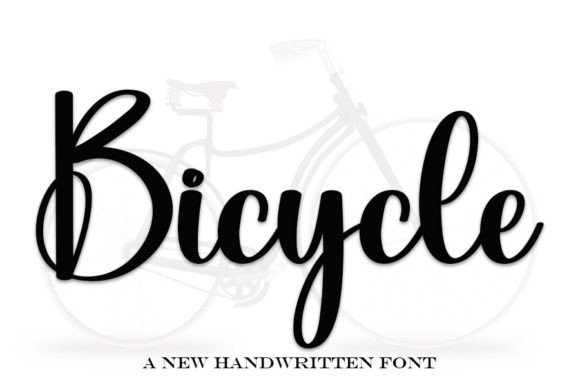
Welcome to the realm of Bicycle Font, a captivating calligraphy-inspired script font family that will add a touch of timeless elegance to your creative endeavors. Immerse yourself in the beauty of its meticulously crafted characters, each stroke infused with personality and charm.
Bicycle Font is a versatile masterpiece, seamlessly blending classic aesthetics with a modern twist. Its balanced and varied design empowers you to elevate your projects, whether it's a heartfelt letter, an enchanting invitation, or a stunning work of art.
Visualize your words transformed into exquisite works of art. Bicycle Font's delicate curves and graceful lines dance across the page, creating an enchanting visual symphony that captivates the senses. Its PUA encoding grants you effortless access to an array of glyphs and ligatures, unlocking a world of creative possibilities.
Harness the power of Bicycle Font to craft designs that resonate with your audience. Its timeless essence will add a touch of sophistication to your logos, branding, and marketing materials, leaving a lasting impression that lingers in the minds of your customers.
Design with intention, express yourself with authenticity, and let Bicycle Font be your muse. Let your creativity flourish as you explore the endless possibilities this remarkable font family has to offer. Experience the magic of Bicycle Font today and embark on a creative journey like never before.